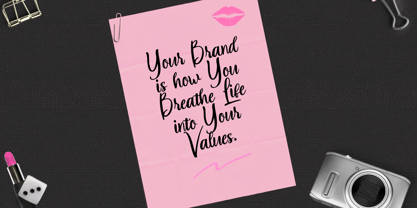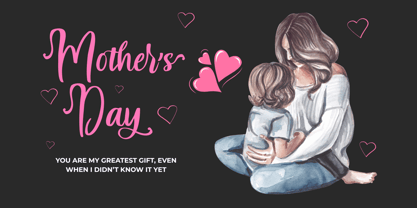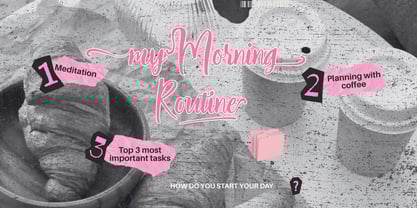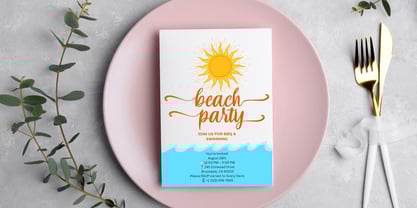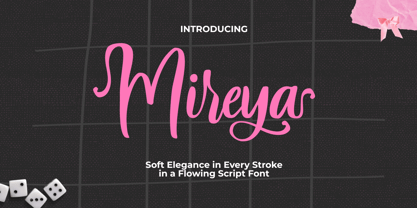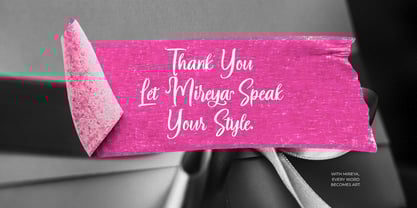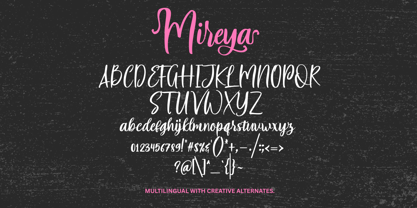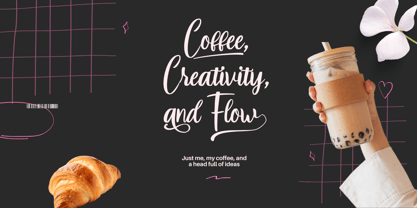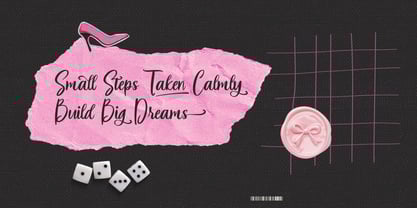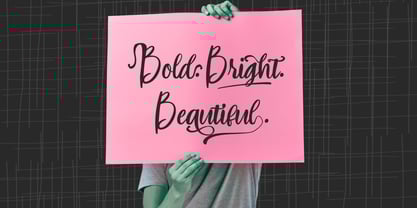
Mireya
by Gatype
The Mireya Font Family was designed by khaidir and published by Gatype. Mireya contains 1 styles. More about this family
Mireya is a charming script font that blends soft curves with graceful movement — perfect for designs that crave both beauty and personality. Every letter flows with a gentle rhythm, making it ideal for branding, wedding stationery, packaging, social media, and beyond.
Designed to feel handwritten yet refined, Mireya brings warmth and elegance into your creative work. Whether you're crafting a heartfelt message or a bold logo, Mireya adds a personal, feminine touch with timeless appeal.
Uppercase & lowercase
Numbers & punctuation
Multilingual support
Tons of alternates & swashes